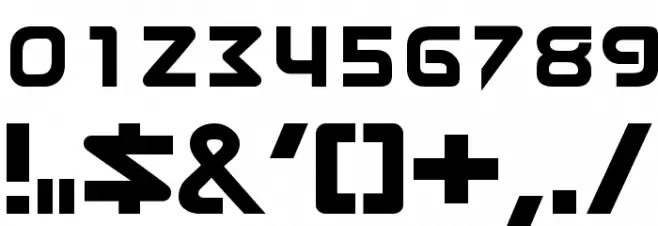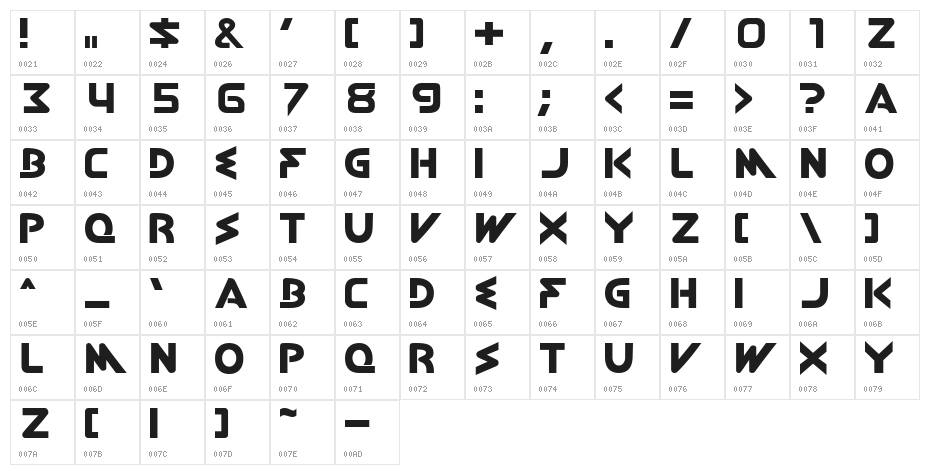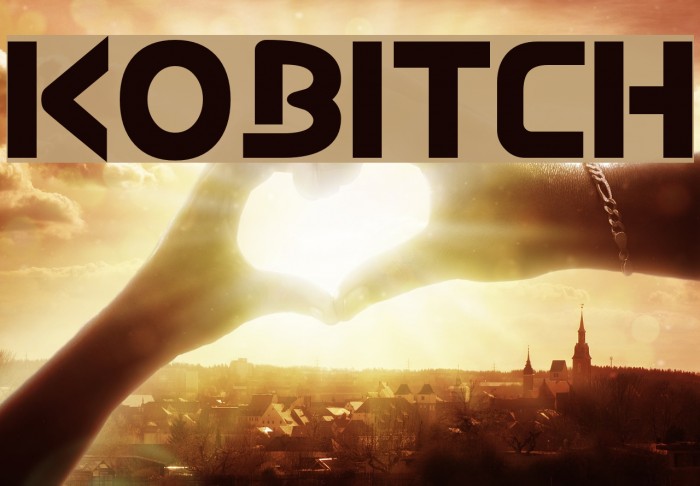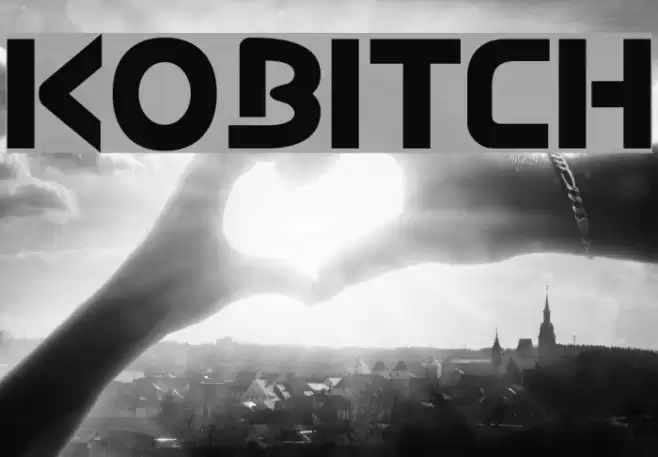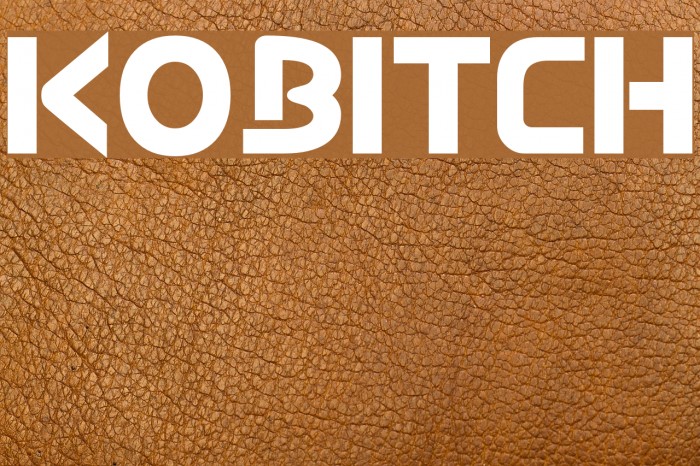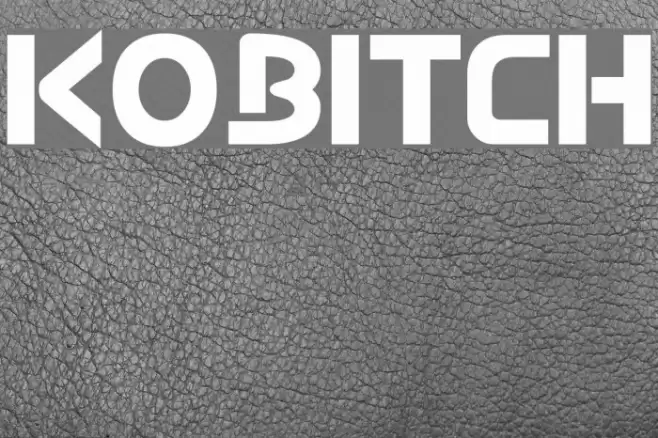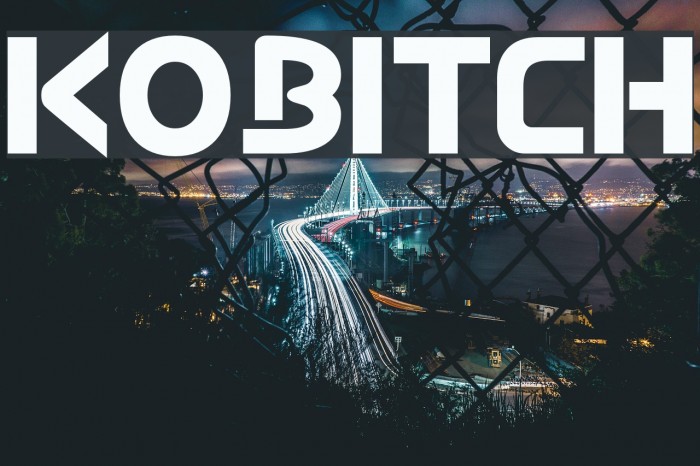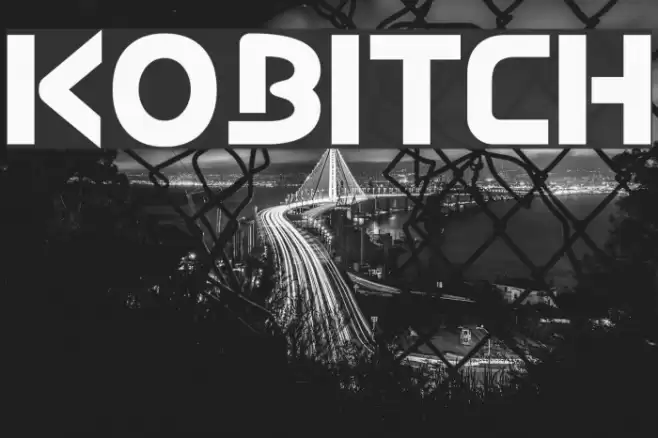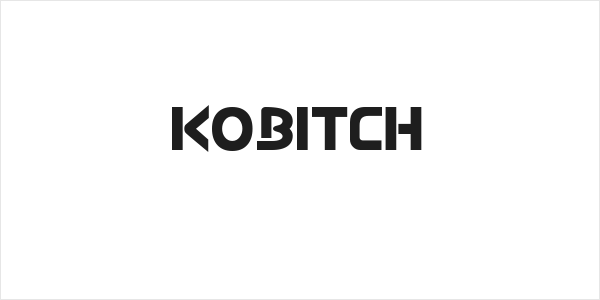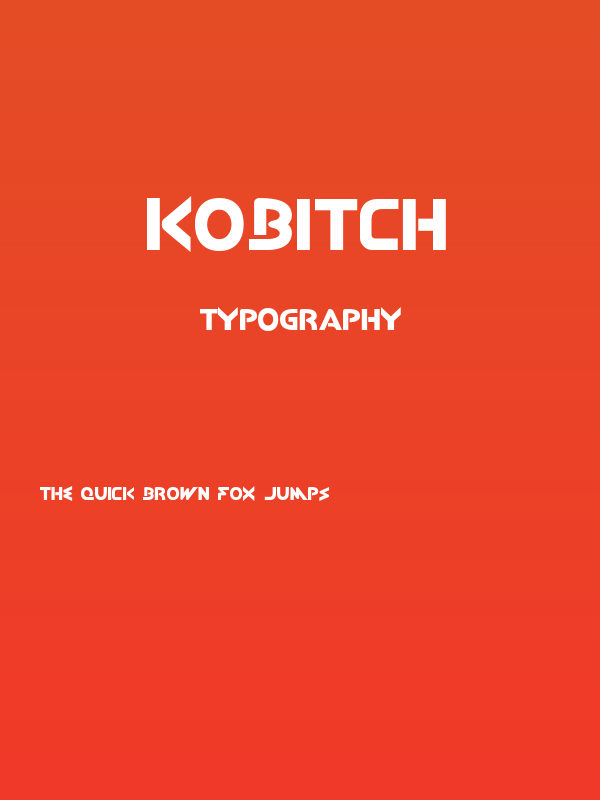
kobitch Font
kobitch Description
This font features a bold and geometric design with sharp angles and distinct shapes, creating a futuristic and dynamic appearance. The characters are constructed with a combination of straight lines and angular cuts, giving them a unique and edgy look. The uppercase and lowercase letters maintain a consistent style, with the uppercase being more prominent and the lowercase slightly more compact. The numbers and special characters follow the same design principles, ensuring uniformity across the font. This font's strong visual impact makes it suitable for attention-grabbing designs.
Overall StyleFuturistic
Proposed ProjectsIdeal for sci-fi themed projects, modern branding, video game titles, and tech-related designs.